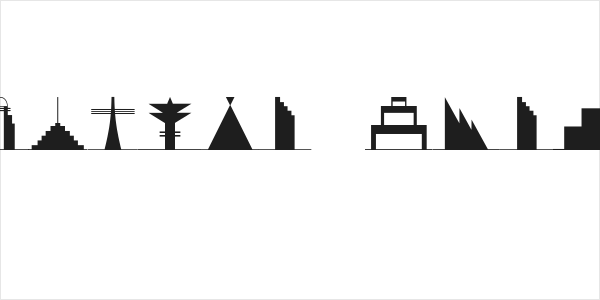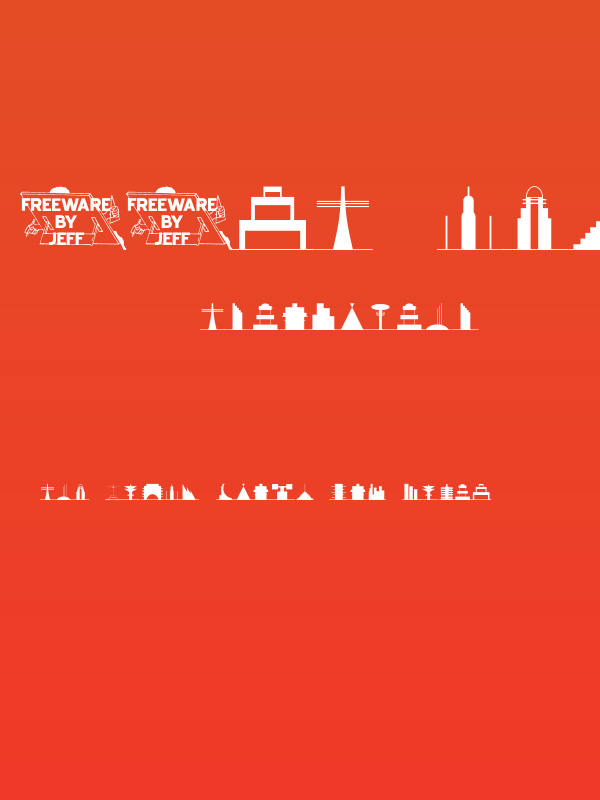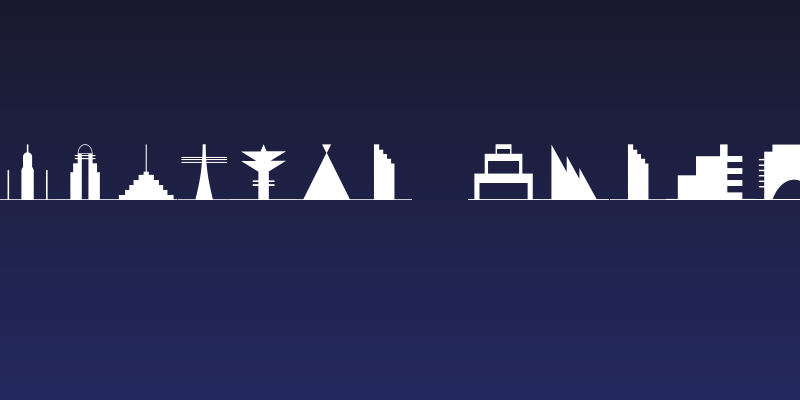
21st Century Skyline JL Font
21st Century Skyline JL Description
This font features a collection of modern and futuristic skyline silhouettes, each representing a unique architectural style. The designs are bold and striking, capturing the essence of urban landscapes with a creative twist. The silhouettes are detailed, showcasing various iconic structures and imaginative buildings, making it ideal for projects that require a touch of modernity and creativity. The font is perfect for adding an urban or futuristic theme to any design, with its distinct and recognizable shapes.
| Use Case | Logos, Headlines, Decorative elements |
| Proposed Projects | Ideal for urban-themed posters, architectural presentations, cityscape illustrations, and creative branding projects. |